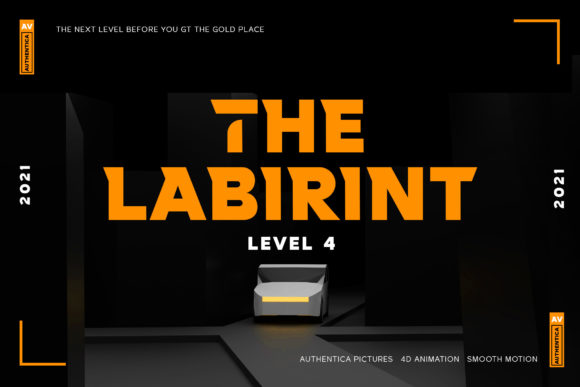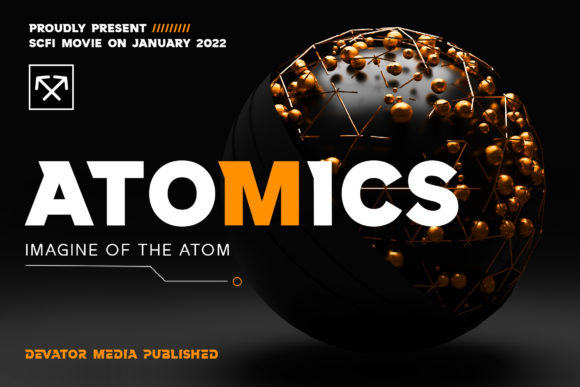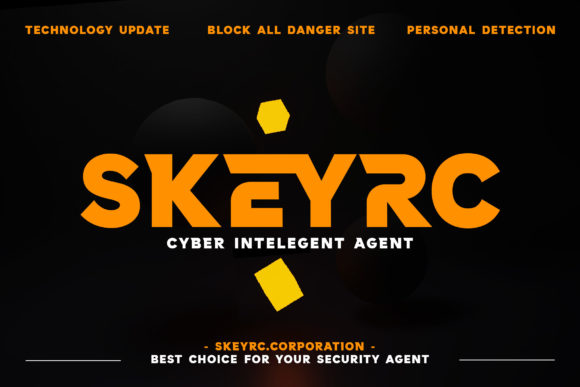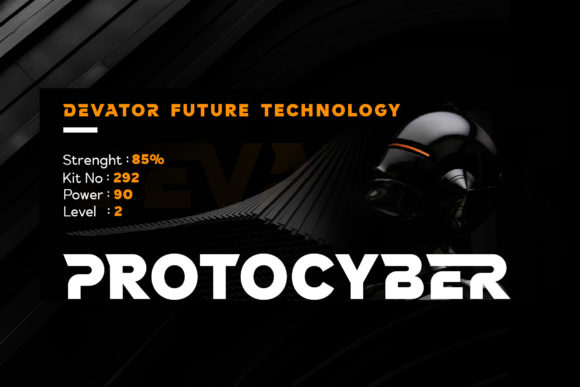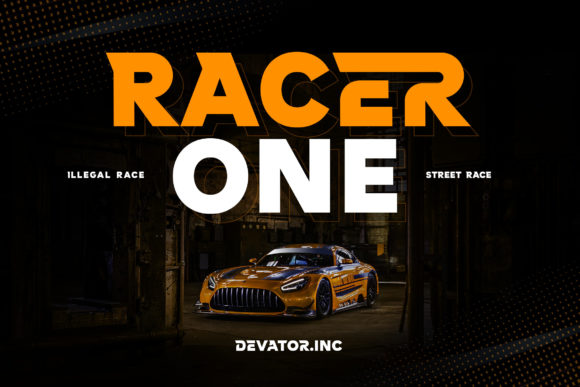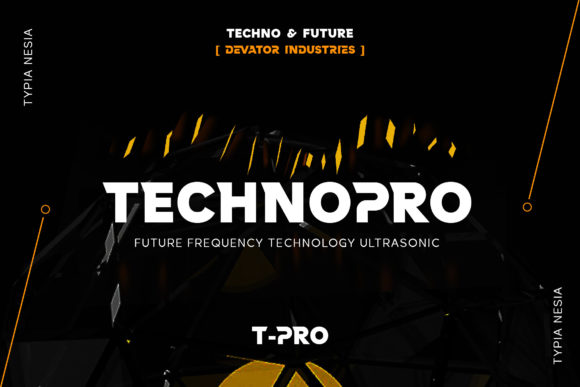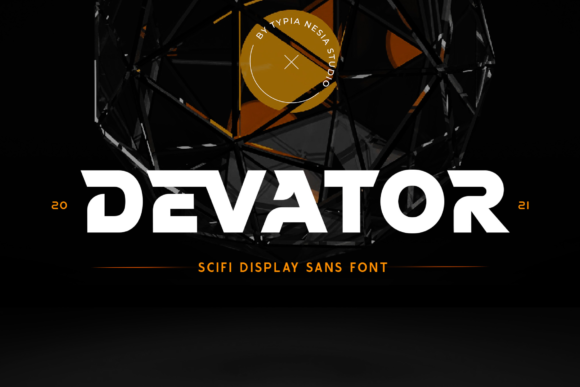
Introducing Devator Font: The Ultimate Modern Display Font for Urban Projects
In the world of typography, fonts play a crucial role in conveying the tone and personality of a brand or project. For designers and crafters looking for a bold and stylish font to elevate their urban projects, Devator Font is an excellent choice. This modern and sporty display font embodies a futuristic style in every character, making it perfect for projects that require a cutting-edge aesthetic.
What is Devator Font?
Devator Font is a display font designed to make a statement. Its sleek and futuristic design makes it ideal for use in headlines, titles, and other display text. The font’s modern and sporty vibe is perfect for urban projects, such as branding, advertising, and marketing materials. With its bold and stylish typography, Devator Font is sure to grab attention and leave a lasting impression.
Key Features of Devator Font
- Modern and Sporty Design: Devator Font boasts a unique and stylish design that is both modern and sporty. Its futuristic style makes it perfect for urban projects that require a bold and eye-catching aesthetic.
- Bold and Stylish Typography: The font’s bold and stylish typography makes it perfect for use in headlines, titles, and other display text. Its high contrast and sleek lines create a visually appealing effect that is sure to grab attention.
- Futuristic Style: Devator Font’s futuristic style is evident in every character. Its sleek lines, geometric shapes, and modern aesthetic make it perfect for projects that require a cutting-edge look.
- High Versatility: Devator Font is highly versatile and can be used in a variety of projects, from branding and advertising to marketing materials and more.
Who Can Benefit from Devator Font?
Devator Font is perfect for designers and crafters who work on urban projects that require bold and stylish typography. This includes:
- Graphic Designers: Graphic designers can use Devator Font to create stunning visual effects in their designs. Its modern and sporty design makes it perfect for use in branding, advertising, and marketing materials.
- Branding and Advertising Agencies: Branding and advertising agencies can use Devator Font to create bold and eye-catching campaigns that grab attention and leave a lasting impression.
- Crafters and Makers: Crafters and makers can use Devator Font to add a touch of modern style to their projects. Its bold and stylish typography makes it perfect for use in handmade products, packaging, and more.
Tips for Using Devator Font
To get the most out of Devator Font, here are some tips to keep in mind:
- Use it as a Display Font: Devator Font is designed to be used as a display font, so use it to create bold and eye-catching headlines and titles.
- Experiment with Different Sizes: Devator Font looks great in a variety of sizes, so experiment with different sizes to find the one that works best for your project.
- Pair it with Other Fonts: Devator Font can be paired with other fonts to create a unique and stylish effect. Try pairing it with a sans-serif font for a modern and sleek look.
In conclusion, Devator Font is a modern and sporty display font that embodies a futuristic style in every character. Its bold and stylish typography makes it perfect for urban projects that require a cutting-edge aesthetic. With its high versatility and sleek design, Devator Font is an excellent choice for designers and crafters looking to elevate their projects and make a lasting impression.